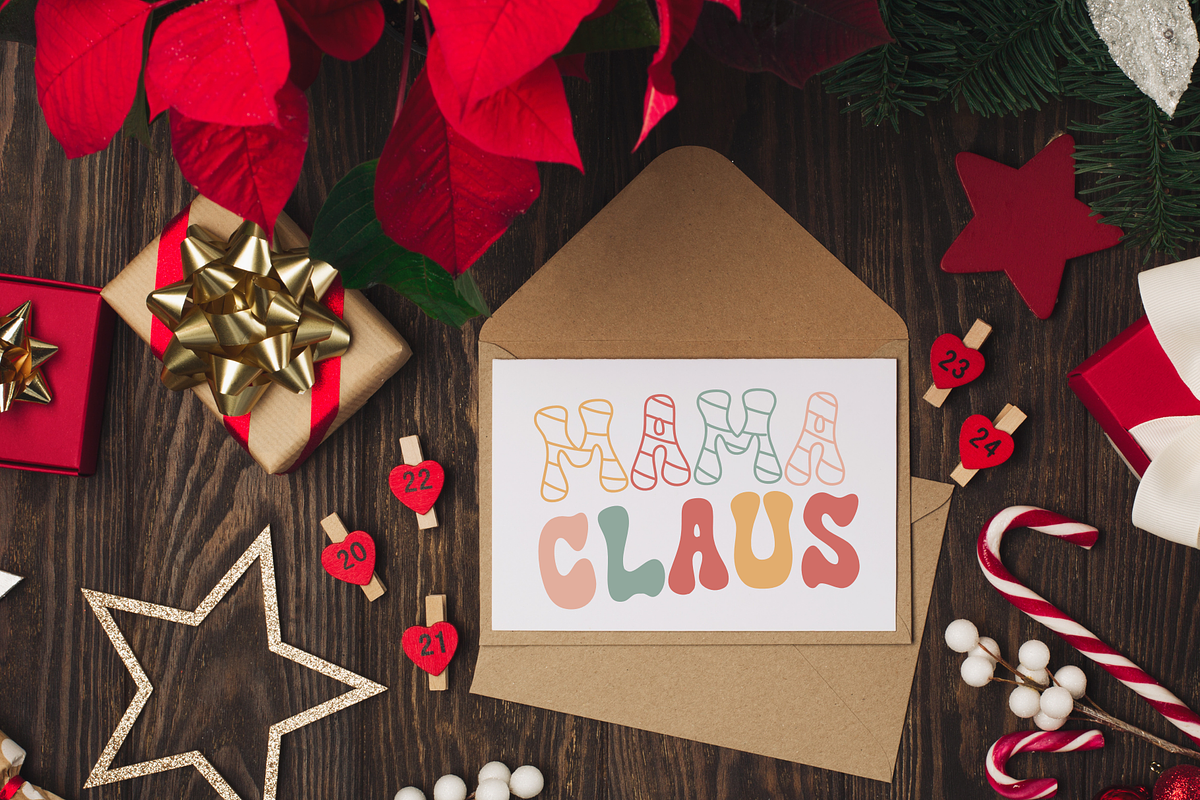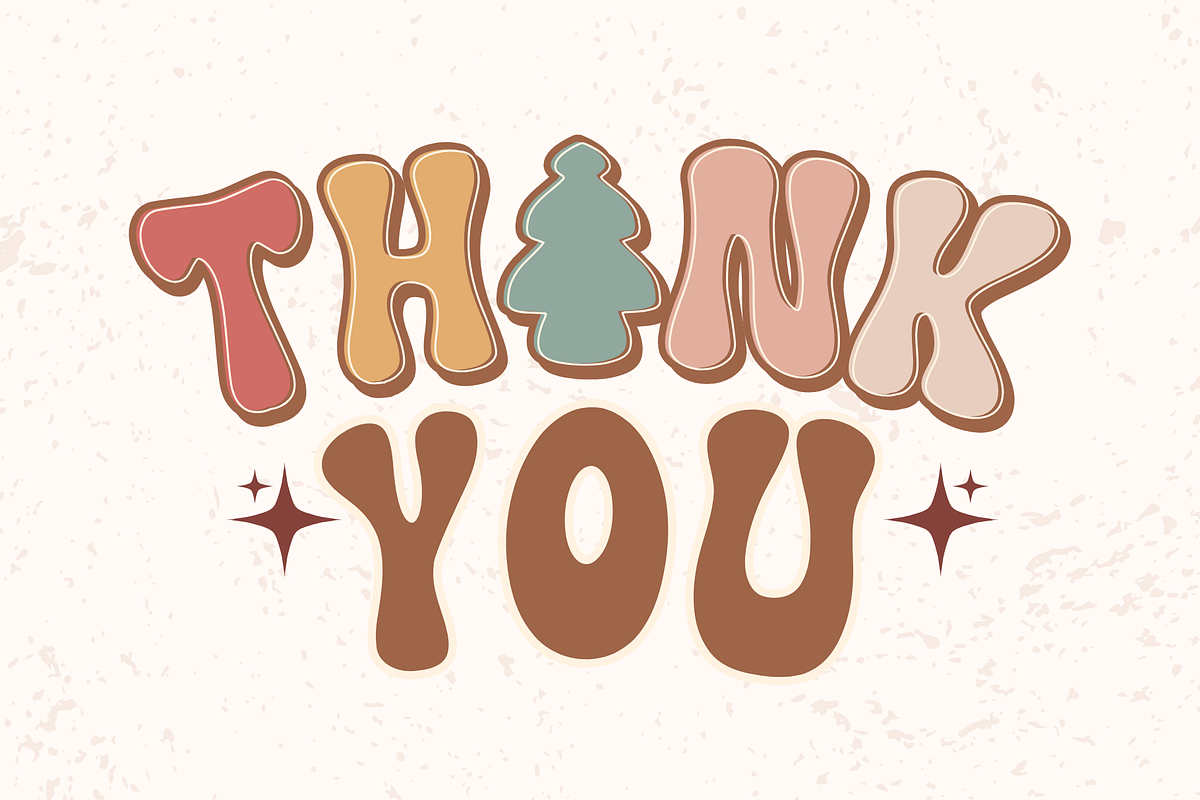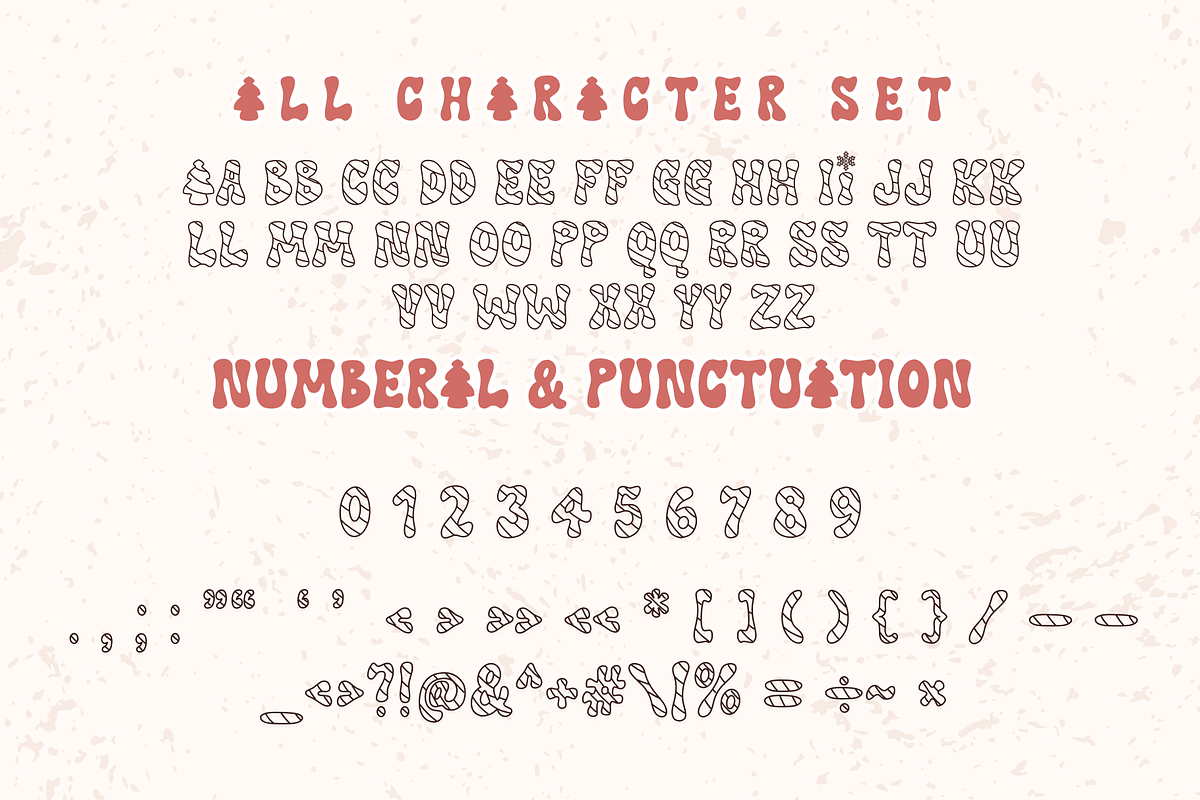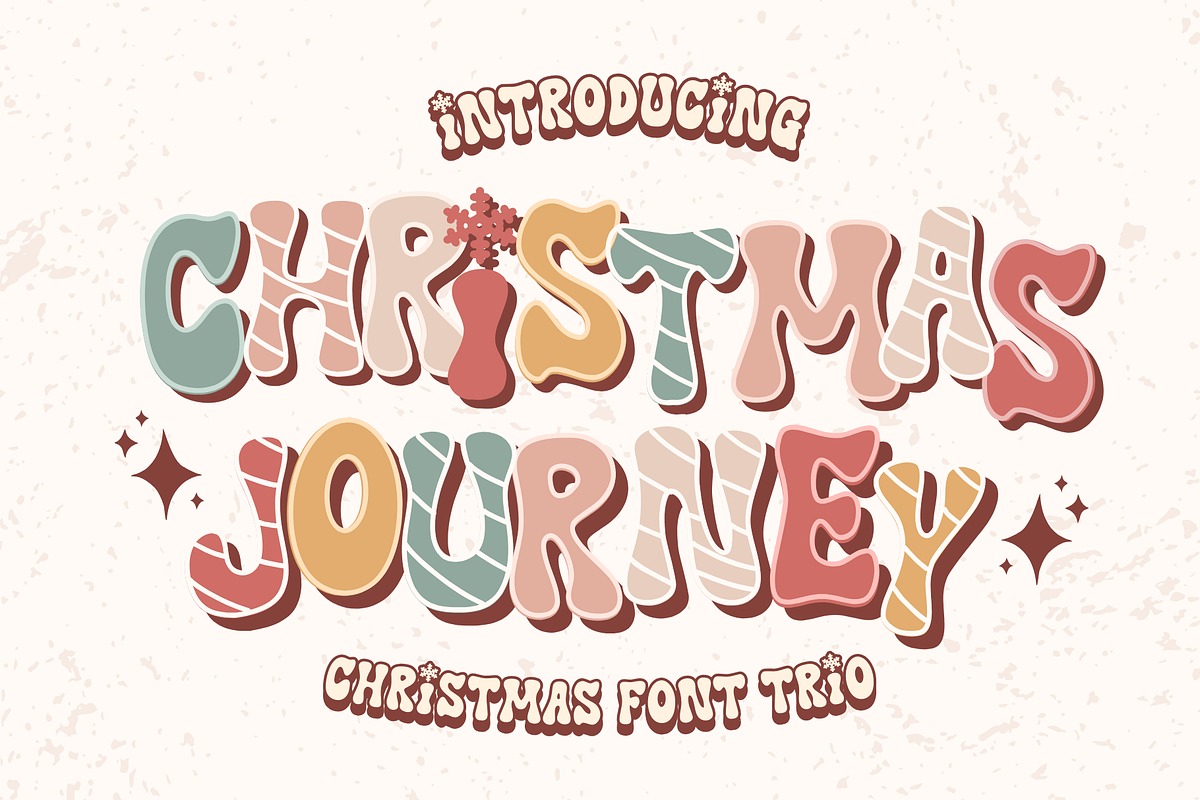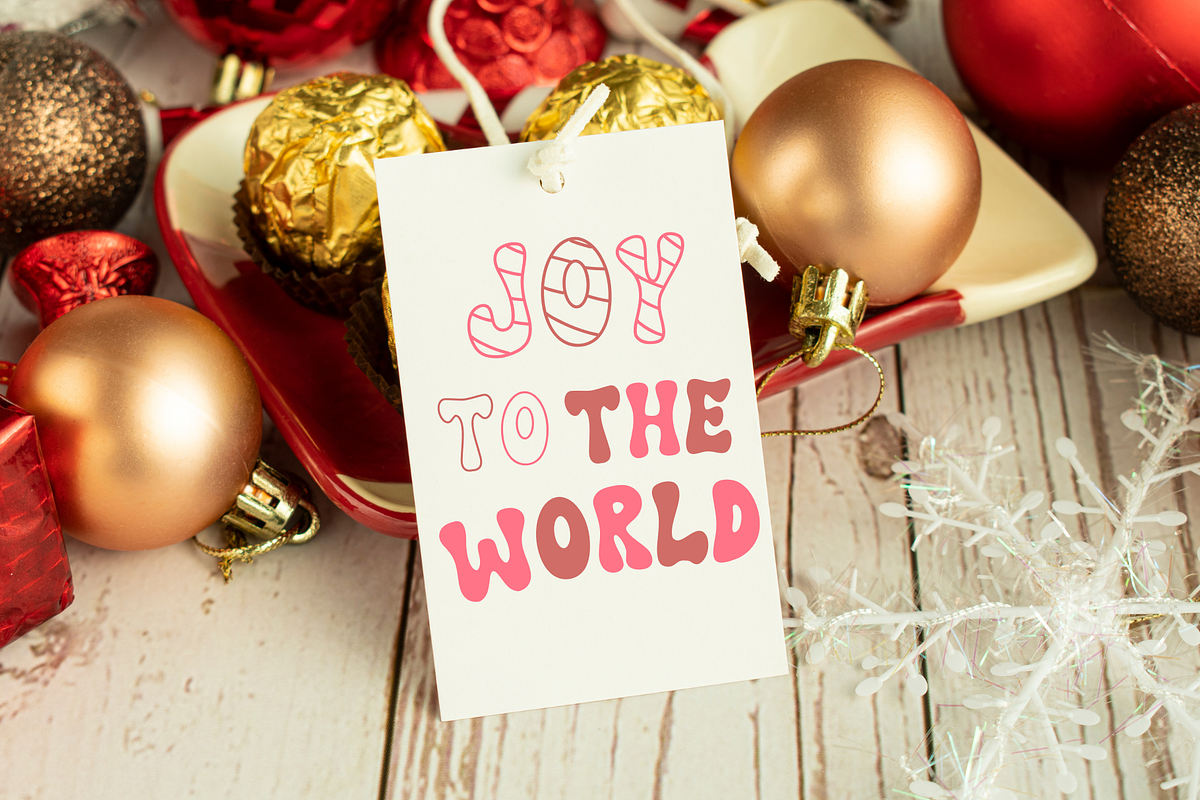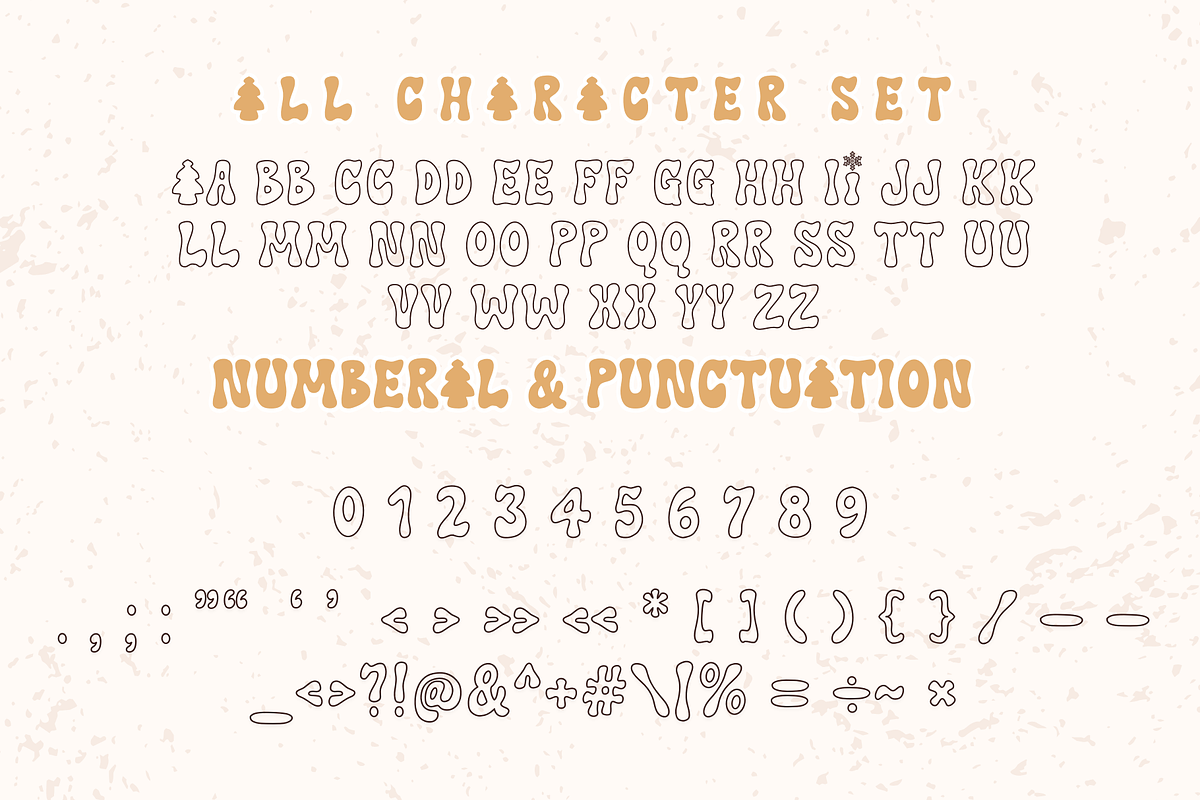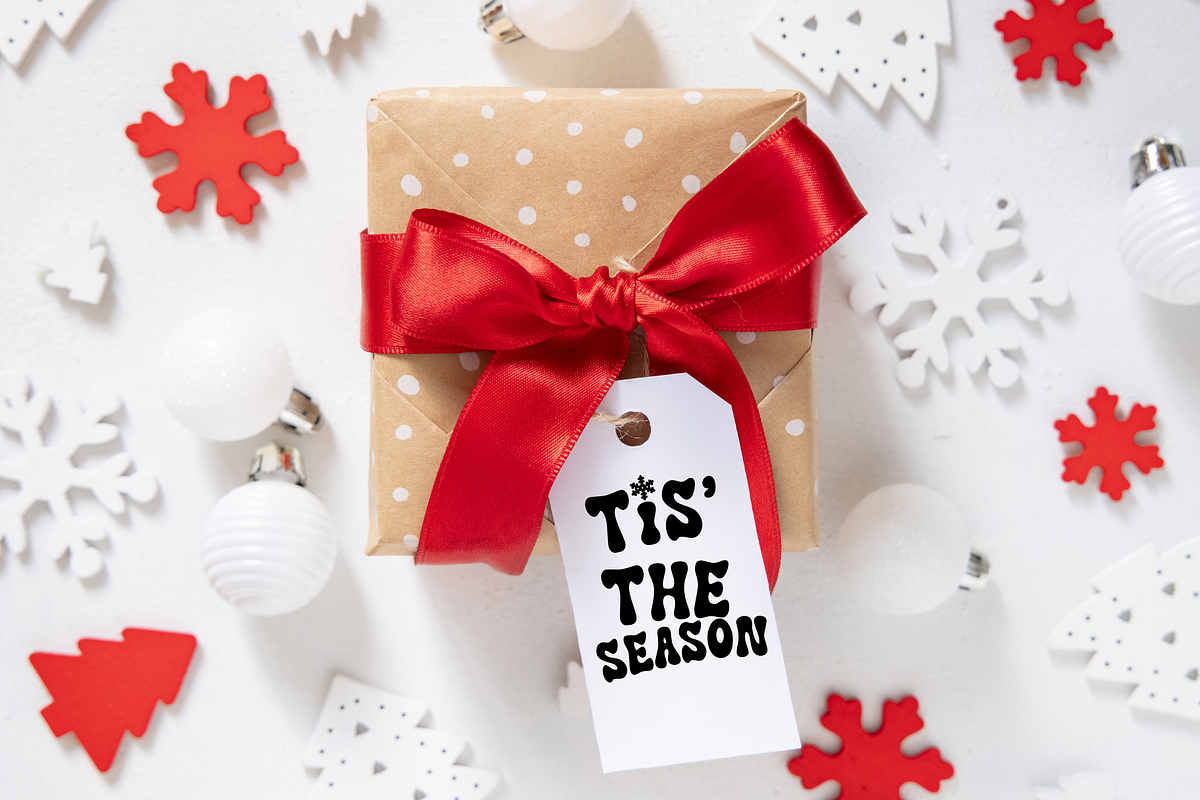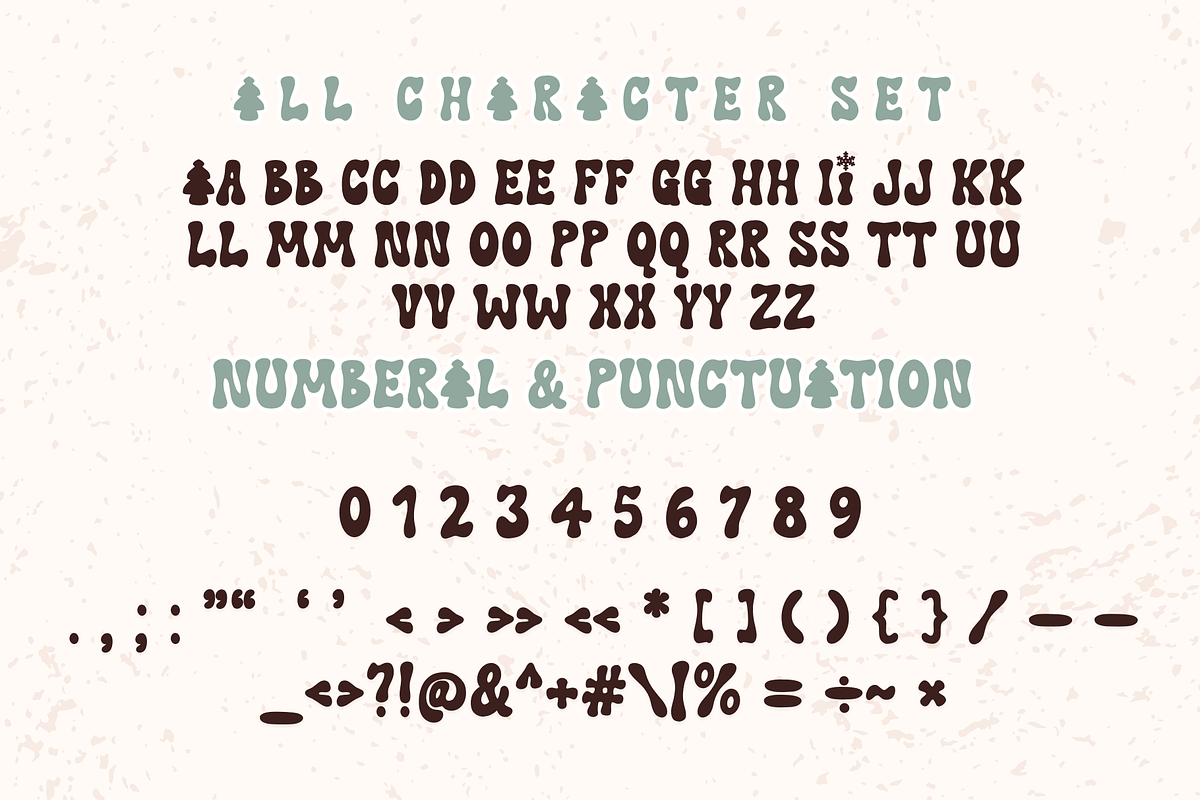
Christmas Journey is cute trio font
Christmas Journey is a cute Christmas trio font. It embodies playfulness and authenticity and is the perfect choice for all your favorite projects such as blog posts, logos, branding, ads, invitations, greeting cards, planners, photo albums, decorations, and more. Add it to any of your designs, and enjoy the results!